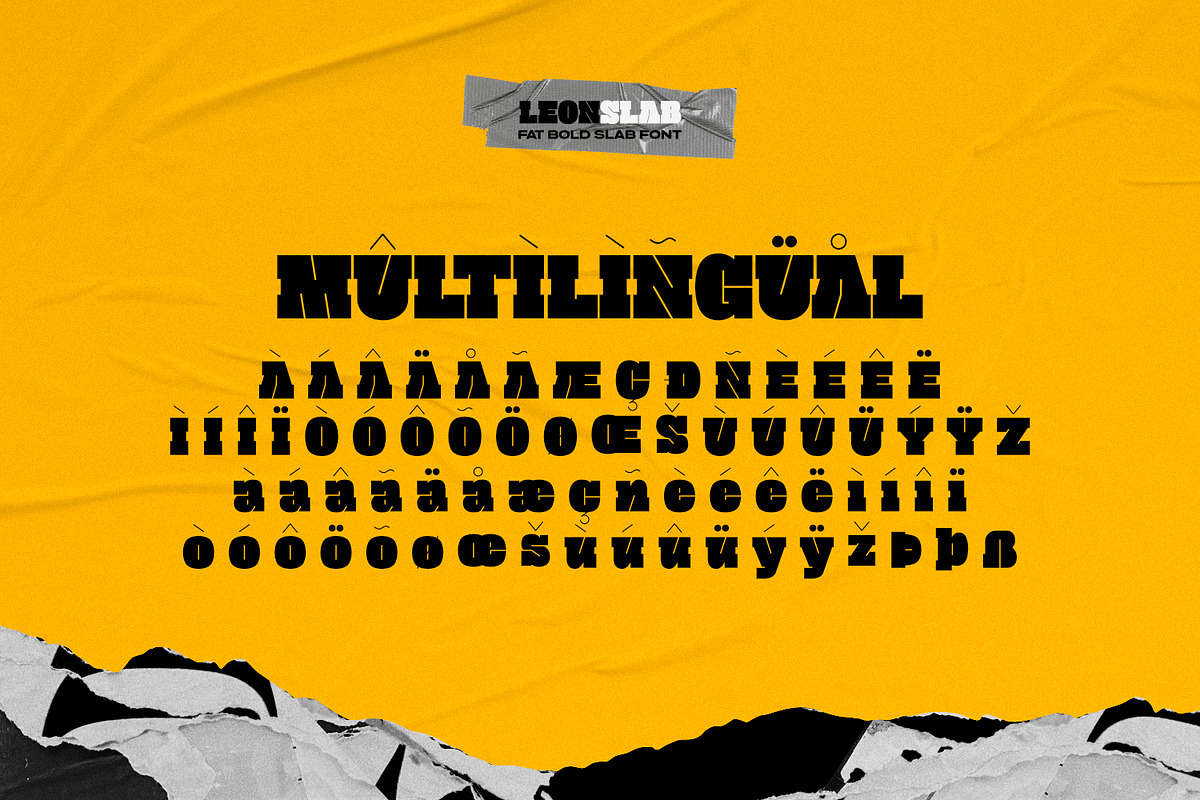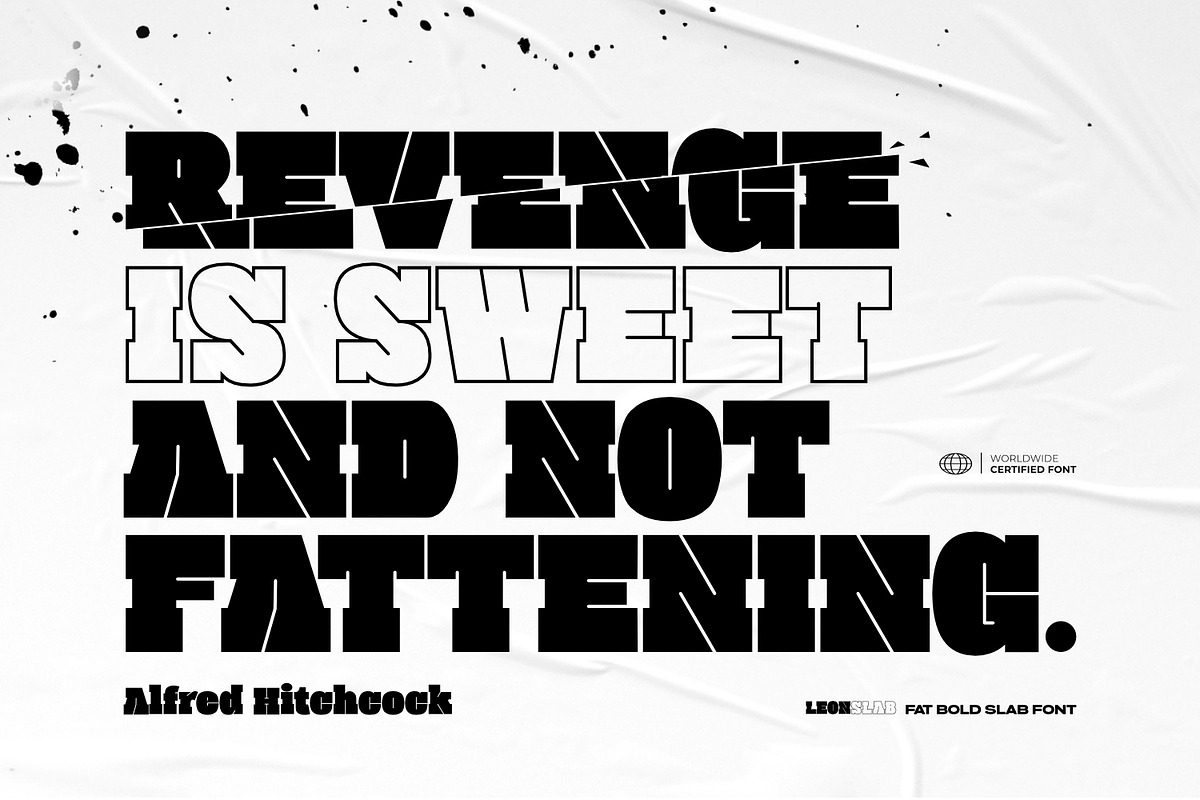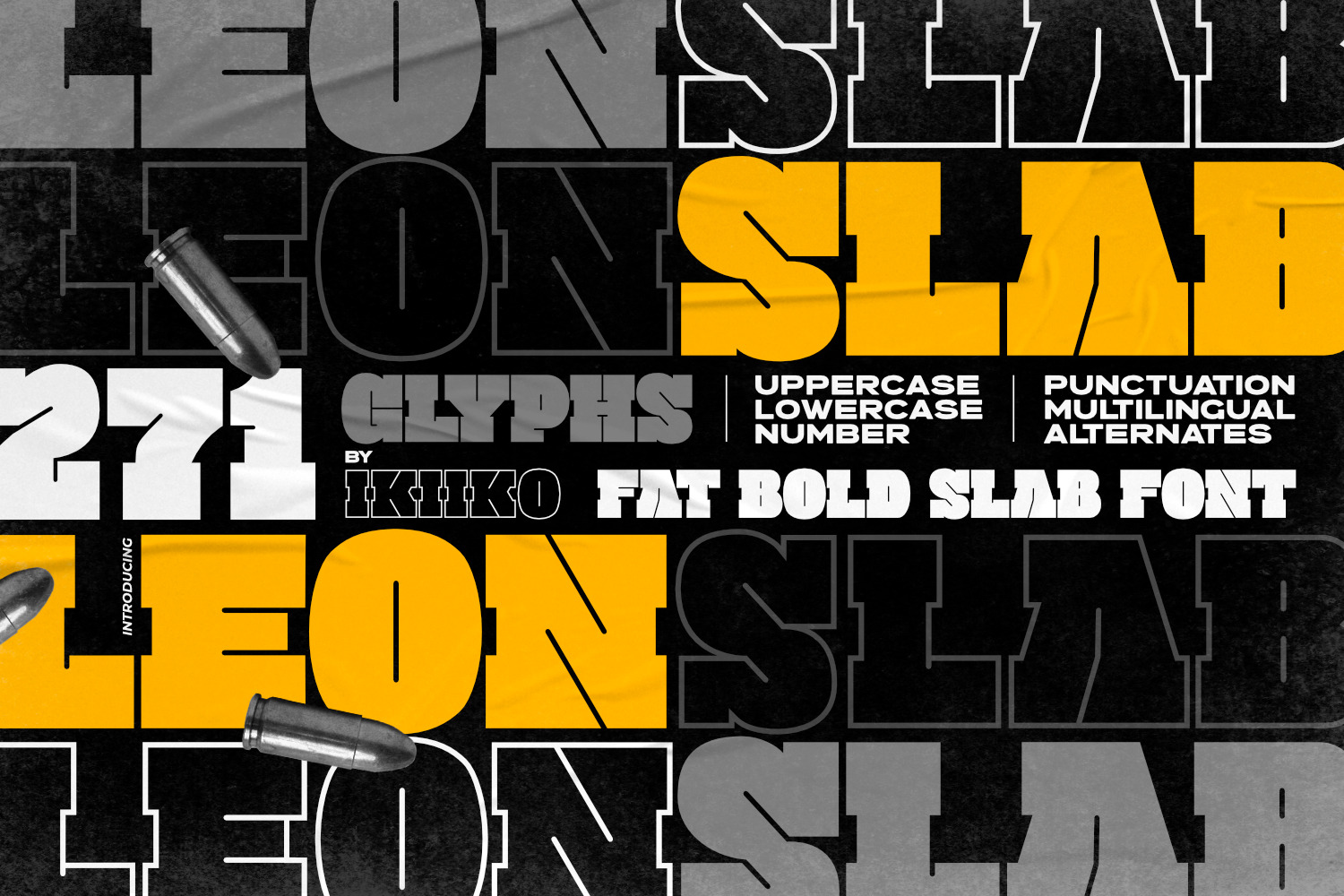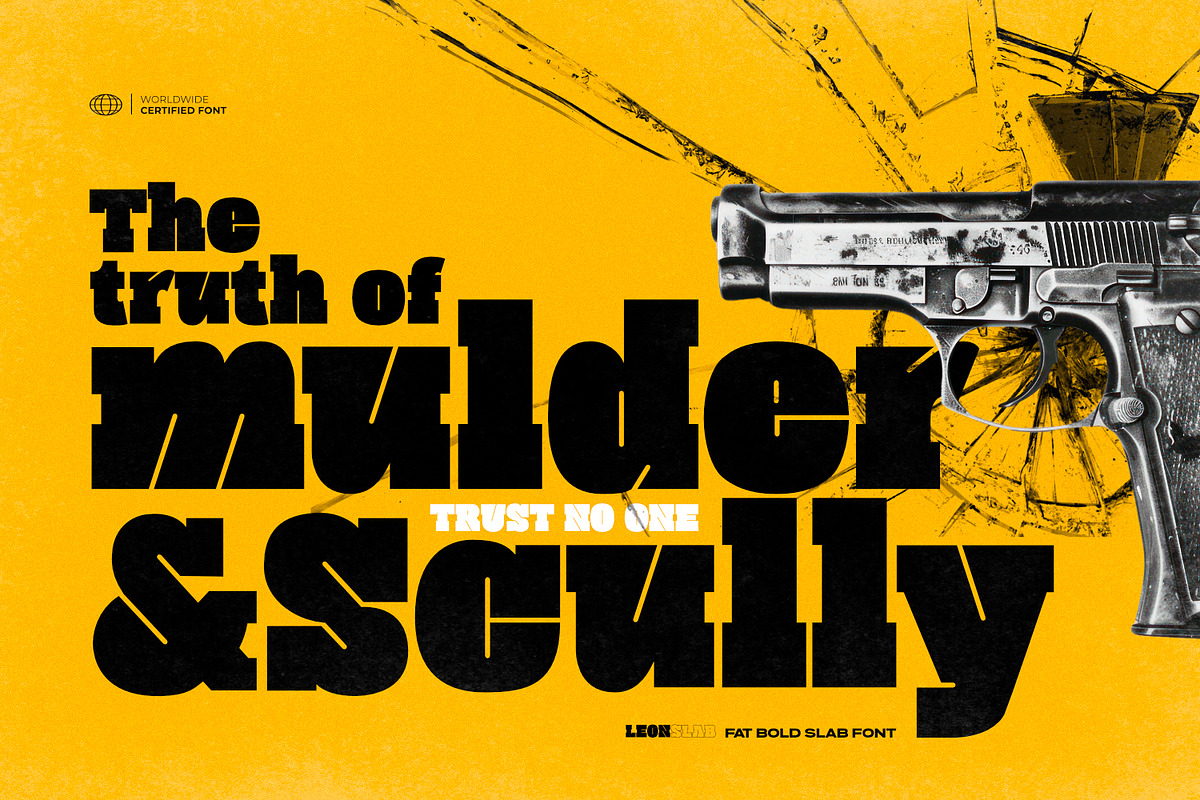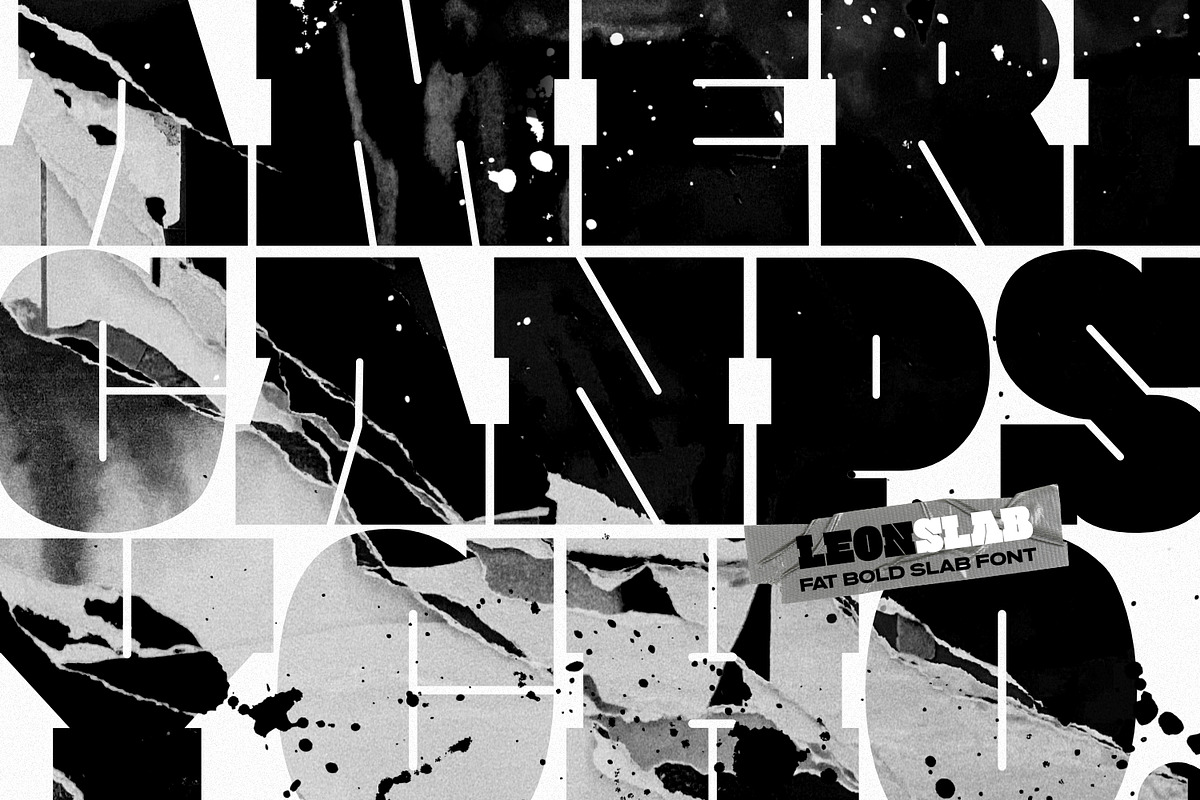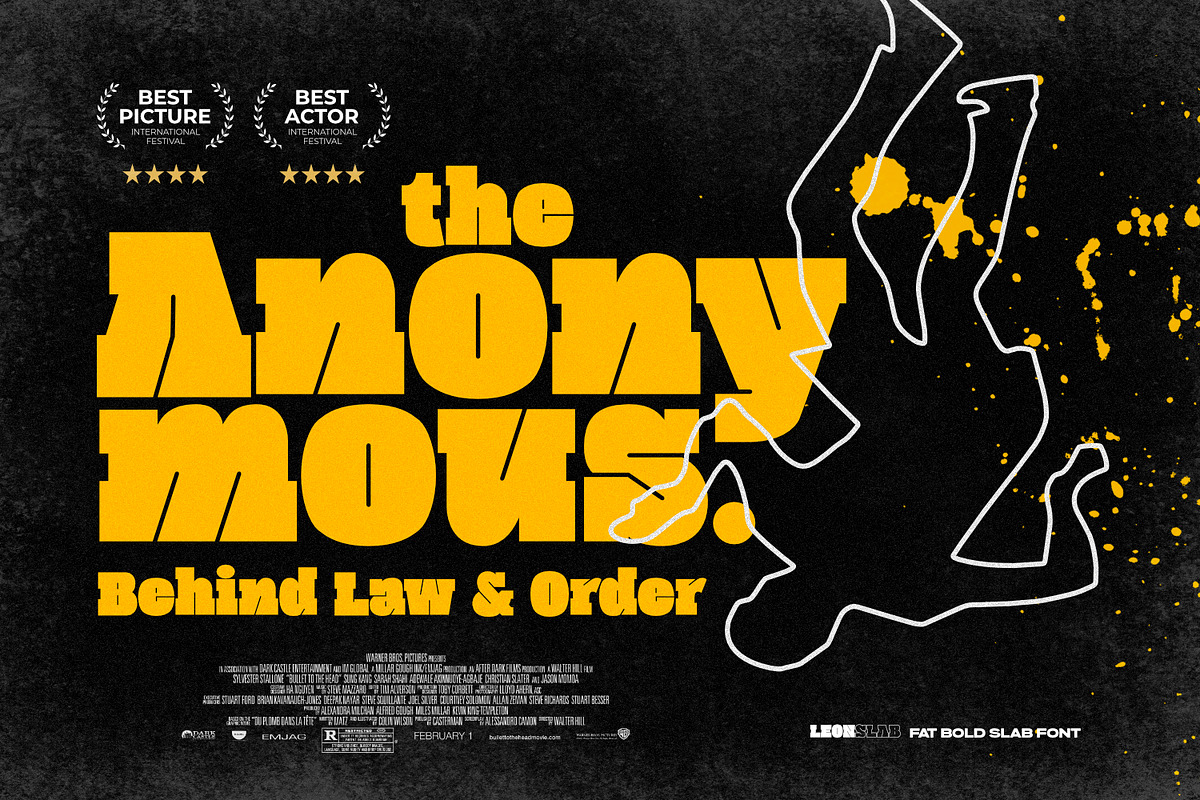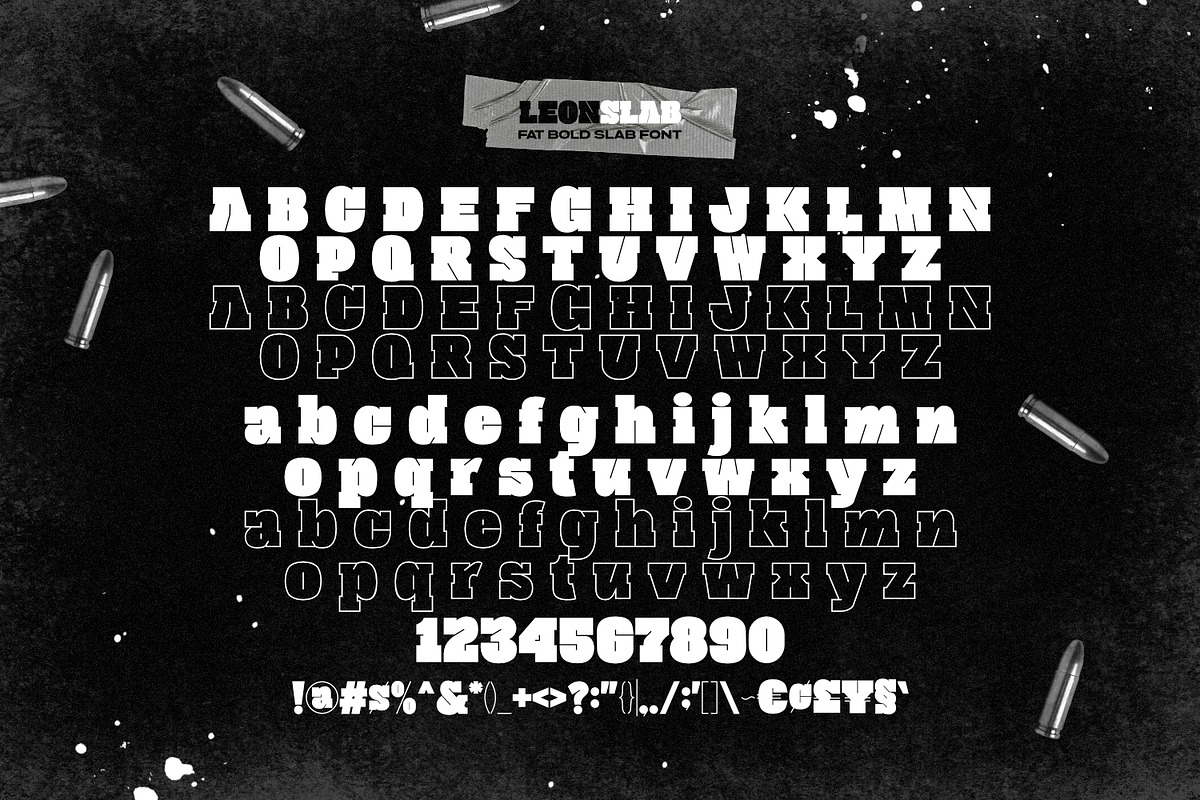
Leon Slab - Fat Bold Slab Font
Proudly present Leon Slab - Fat Bold Slab Font, created by ikiiko.
A strong, dominating typeface that radiates strength and confidence. Leon Slab's letters are expertly constructed with broad, robust lines that give them a significant presence on the page or screen. Every character has an attention-grabbing aggressiveness that makes it perfect for titles, headings, and signage where impact is important.
Leon Slab has two unique styles—bold and outlined—to accommodate different design requirements. The font's substantial weight is emphasized by the bold style, which makes text stand out against backgrounds. The stronger strokes used to outline the characters in the outlined style give a striking contrast to the negative space within each letter, while the overall effect adds a dynamic flair.
This font is very suitable for making a movie poster, movie title, poster, headline, cover, magazine layout, food & beverages packaging, quotes, or simply as a stylish text overlay to any background image.